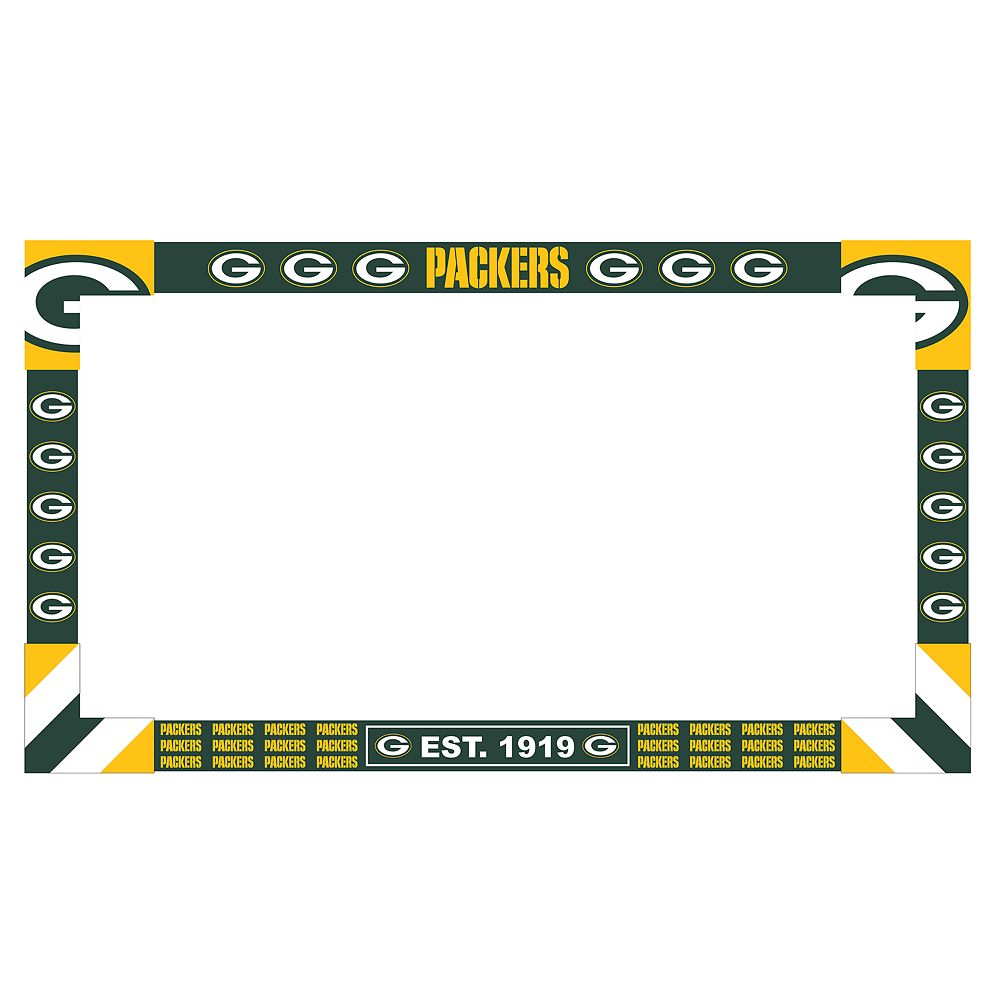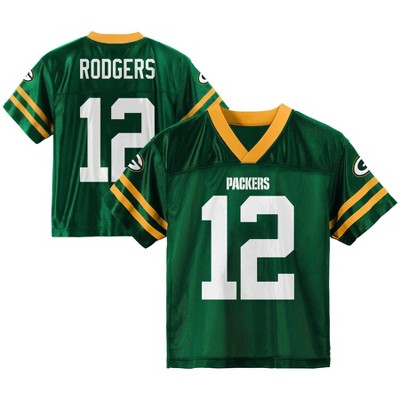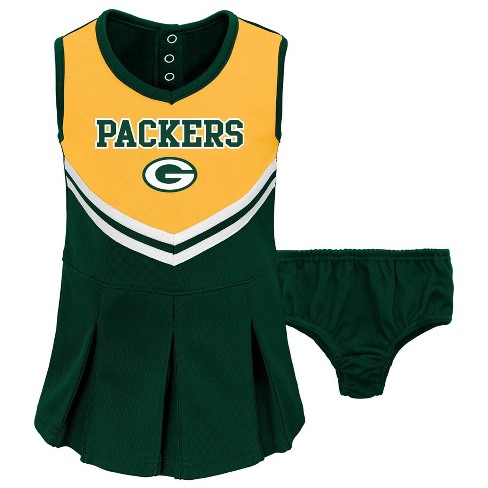
Green Bay Packers Font Style
The green bay packers logo features a white g in a green oval with a yellow outline with its wordmark beneath.
The wordmark is set in a stencil font which is very similar to gi. A font based on the green bay packers logo. The best website for free high quality green bay packers fonts with 27 free green bay packers fonts for immediate download and 50 professional green bay packers fonts for the best price on the web.